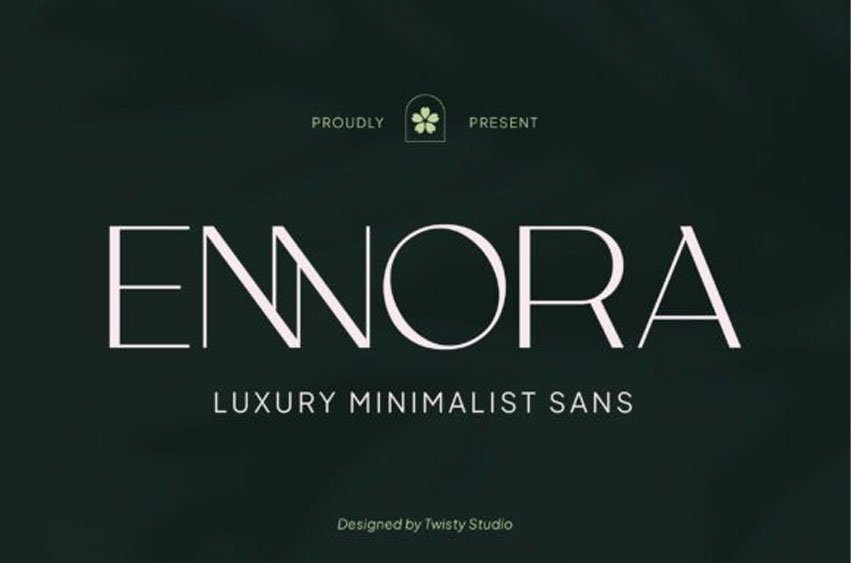
Ennora Font is a refined luxury minimalist sans typeface designed to deliver elegance through simplicity. With its clean lines, balanced proportions, and subtle modern details, Ennora creates a sophisticated and polished look that feels both contemporary and timeless.
Its minimalist style allows every letter to breathe, making it perfect for high-end branding that values clarity, space, and visual harmony. Whether used for logos, editorial layouts, or premium packaging, Ennora brings a quiet yet powerful sense of luxury to any design.